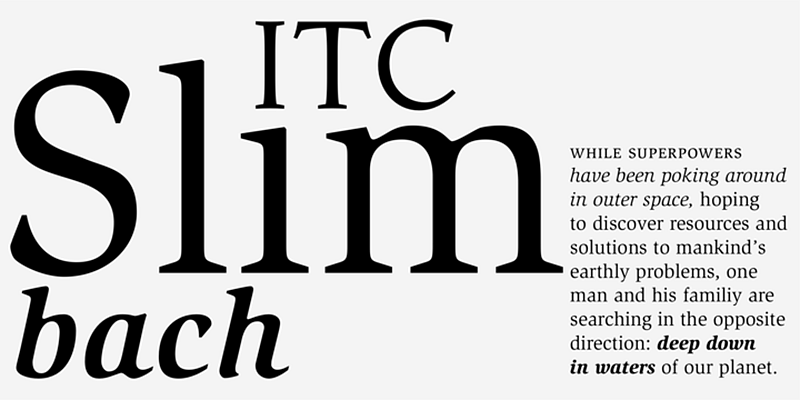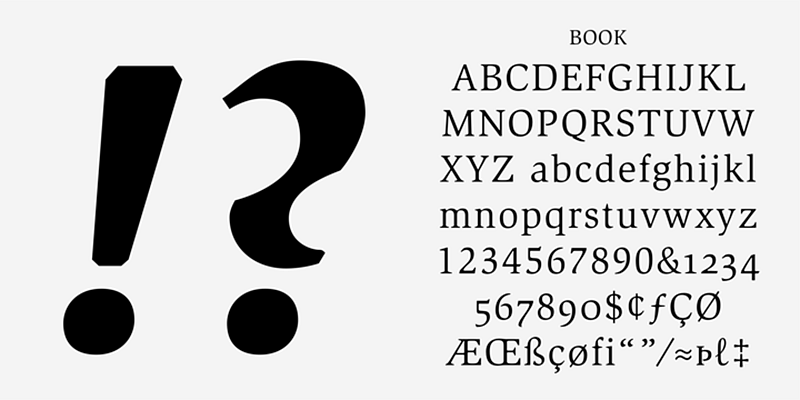
Released in 1987 by the International Typeface Corporation, this design by Robert Slimbach is a highly legible, slightly condensed text face with a strong calligraphic flavor. Slimbach incorporated qualities of readability and legibility into this carefully constructed yet lively typeface.